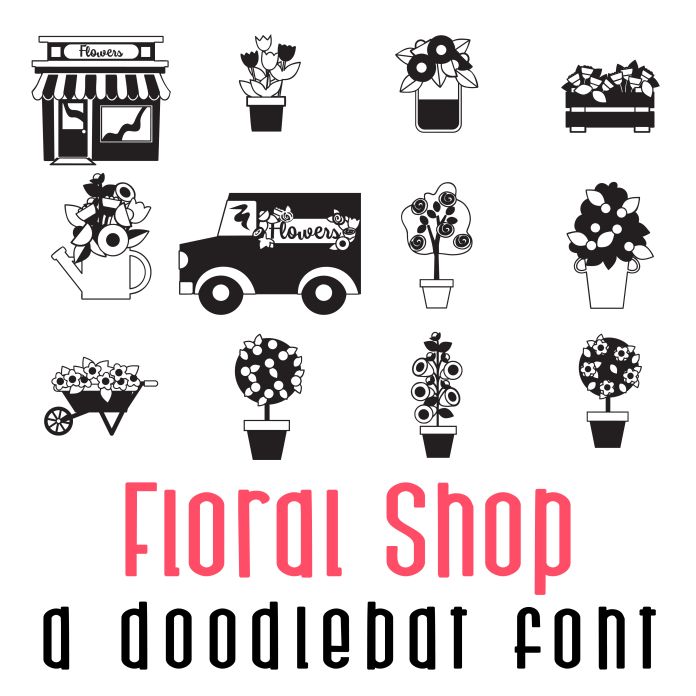
Floral Shop Doodlebat Font is a whimsical and intricate dingbat font featuring 26 garden and flower-themed images in pots and floral shop. Perfect for adding a touch of nature to any project, this font is ideal for invitations, cards, and scrap booking. The intricate details and delicate style make it a standout choice for anyone looking to incorporate floral elements into their designs. Perfect for cards, crafts, parties, gifts, decor, planner stickers, classrooms, scrapbook pages and more!